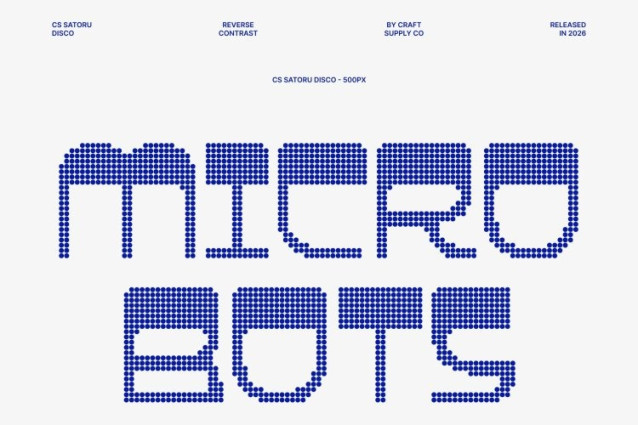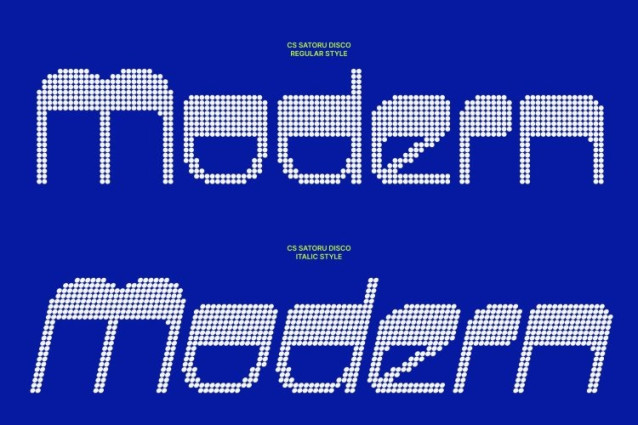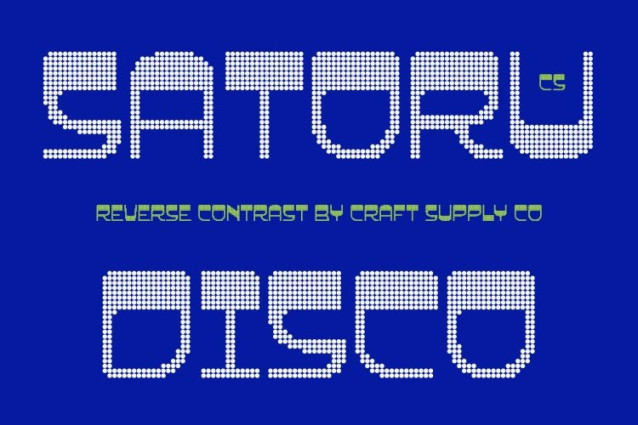
CS Satoru Disco Font
CS Satoru Disco Font – This font transforms the bold reverse contrast display style into a lively dotted font inspired by the sparkle of disco lights. Each character is built from carefully arranged circular dots, creating a shimmering texture that reflects the vibrant energy, glamour, and rhythm of the dance floor. This dotted structure highlights the dramatic weight distribution of the reverse contrast design, making every letter feel dynamic and visually exciting.
Modular Retro Form with Rhythmic Dot Structure
The geometric and modular construction of the original design remains strong, while the dotted pattern introduces a playful rhythm and movement. The dots emphasize the structured shapes while adding a festive visual effect, creating a balance between retro typography and modern decorative style.
Vintage Personality with Cheerful Disco Atmosphere
The bold forms combined with sparkling dots create a joyful retro personality that feels both nostalgic and contemporary. The dotted surface softens the strong shapes while enhancing the lively mood, giving the typeface a glamorous party-like presence that captures the spirit of disco culture.
Perfect for Bold and Energetic Visual Designs
This is perfect for posters, branding, editorial layouts, event graphics, packaging, and creative campaigns. Its retro structure paired with vibrant dotted styling makes it ideal for projects that want to feel bold, fun, and visually memorable.